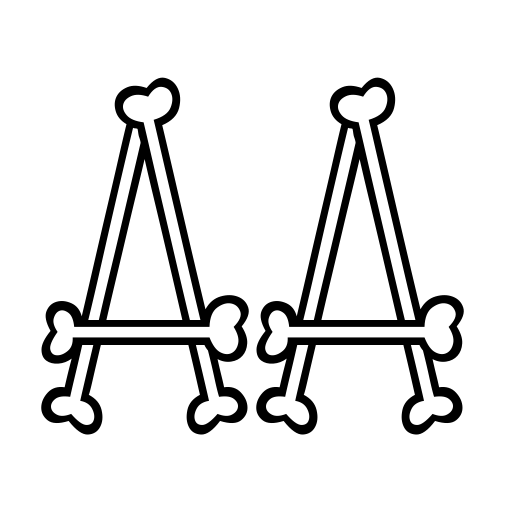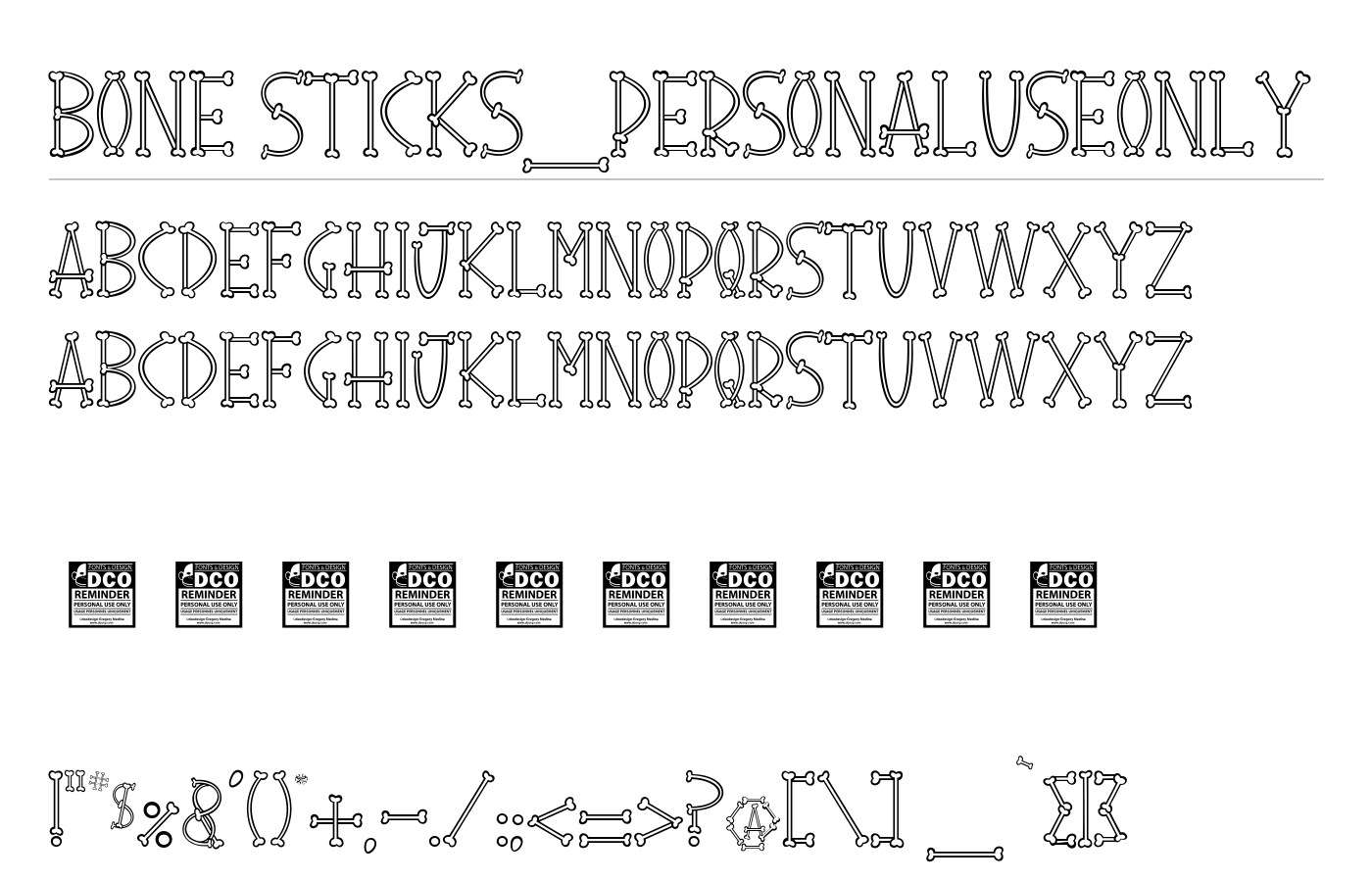
Bone Sticks is a playful and quirky decorative font characterized by its unique bone-shaped strokes and narrow, elongated letterforms. This all-caps design combines a hand-drawn feel with whimsical details, making it ideal for Halloween themes, party invitations, or creative branding that seeks a fun and distinctive look. Its intricate bone motif adds a charmingly eerie vibe, perfect for designs that want to stand out with personality and character.
Bone Sticks_PersonalUseOnly Font
About Bone Sticks_PersonalUseOnly Font
| Designer | Gregory Medina ©dcodesign 2022 |